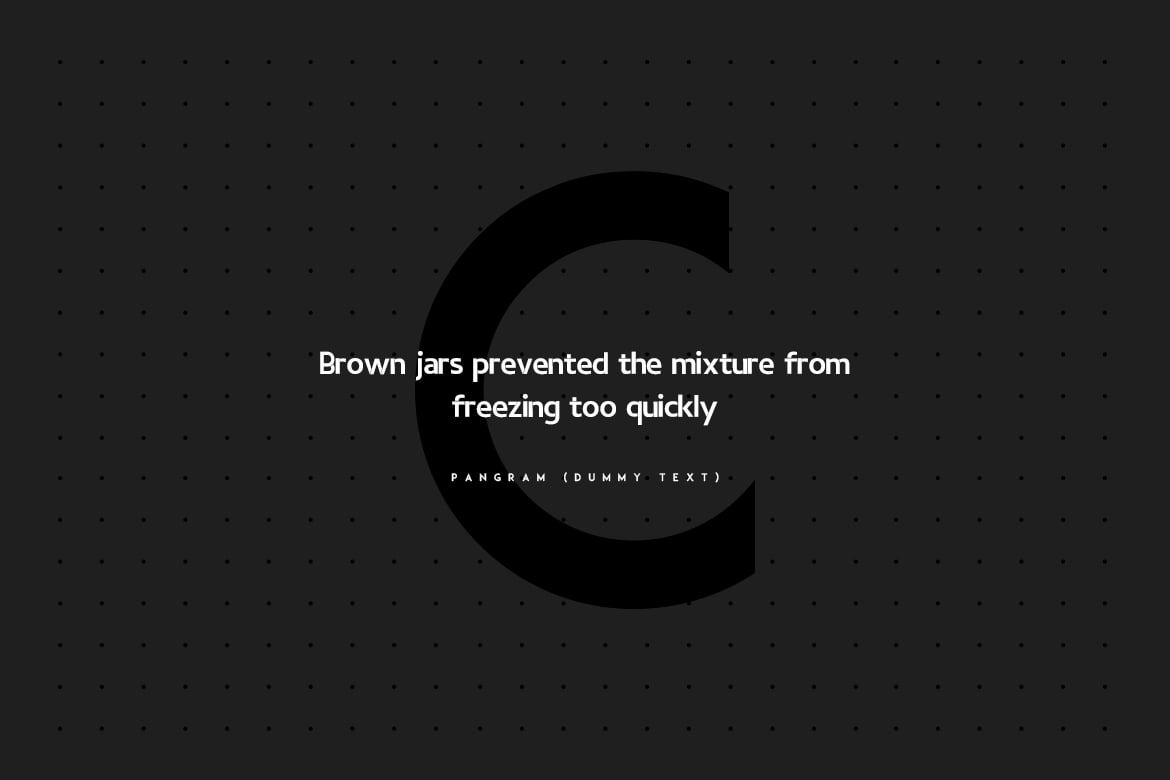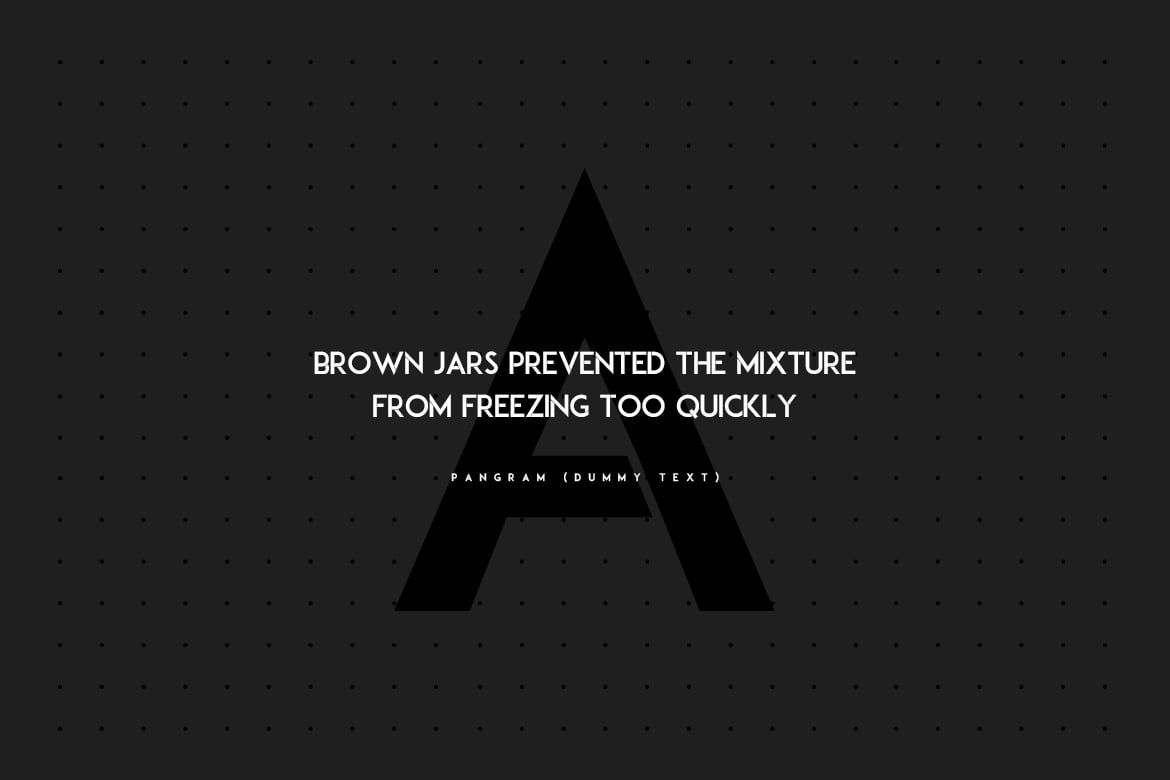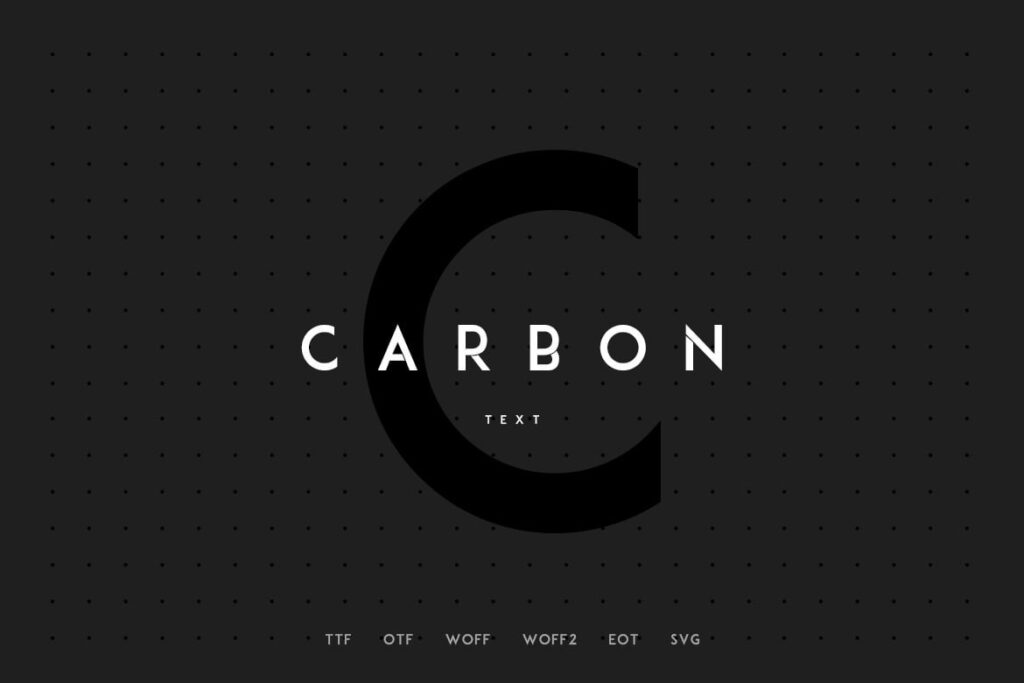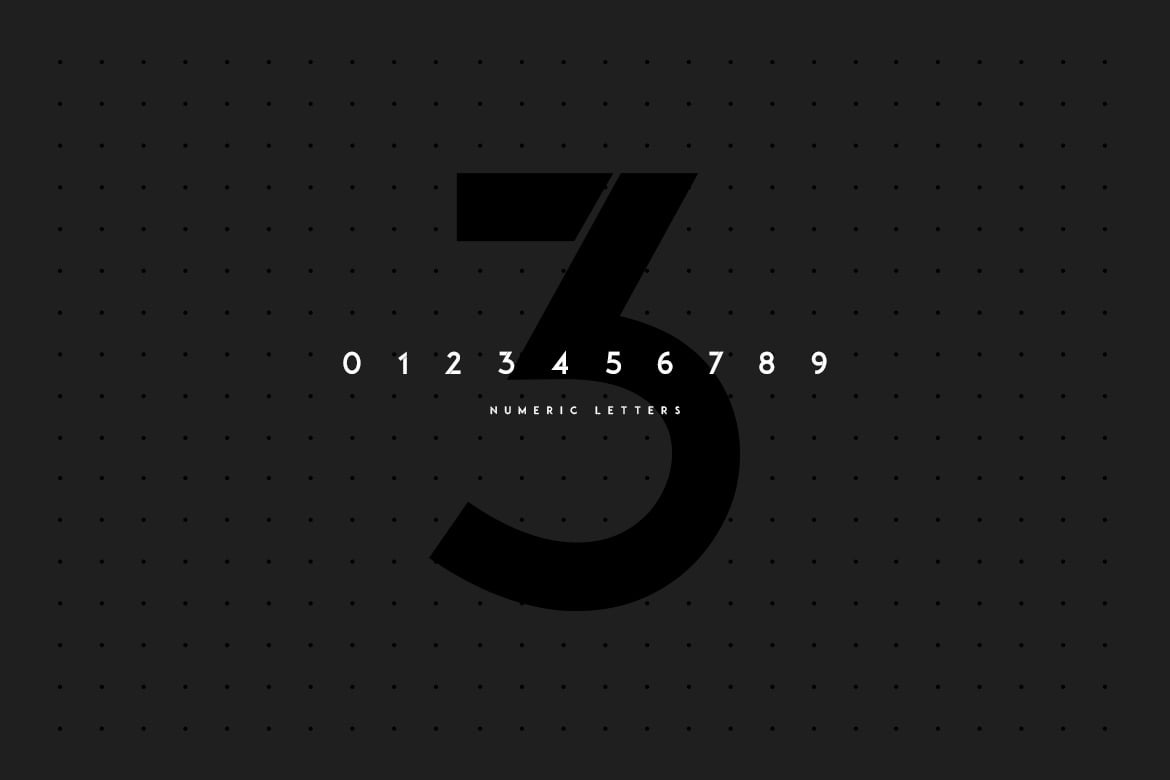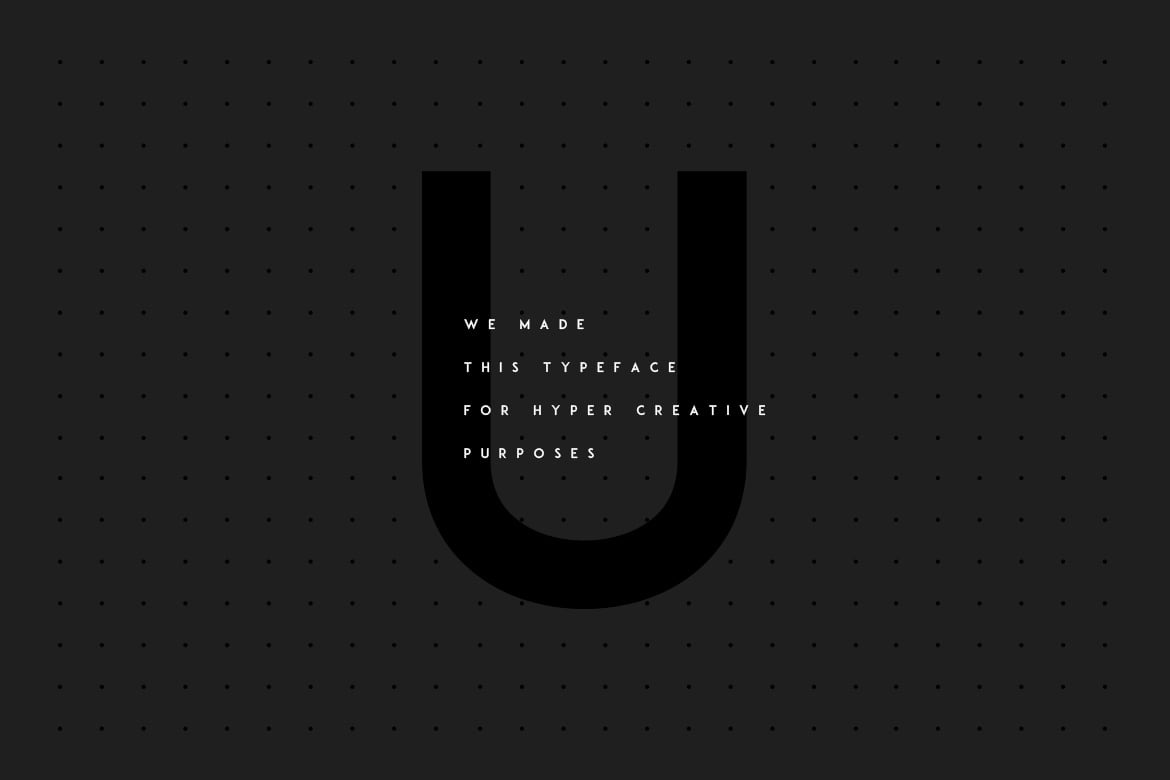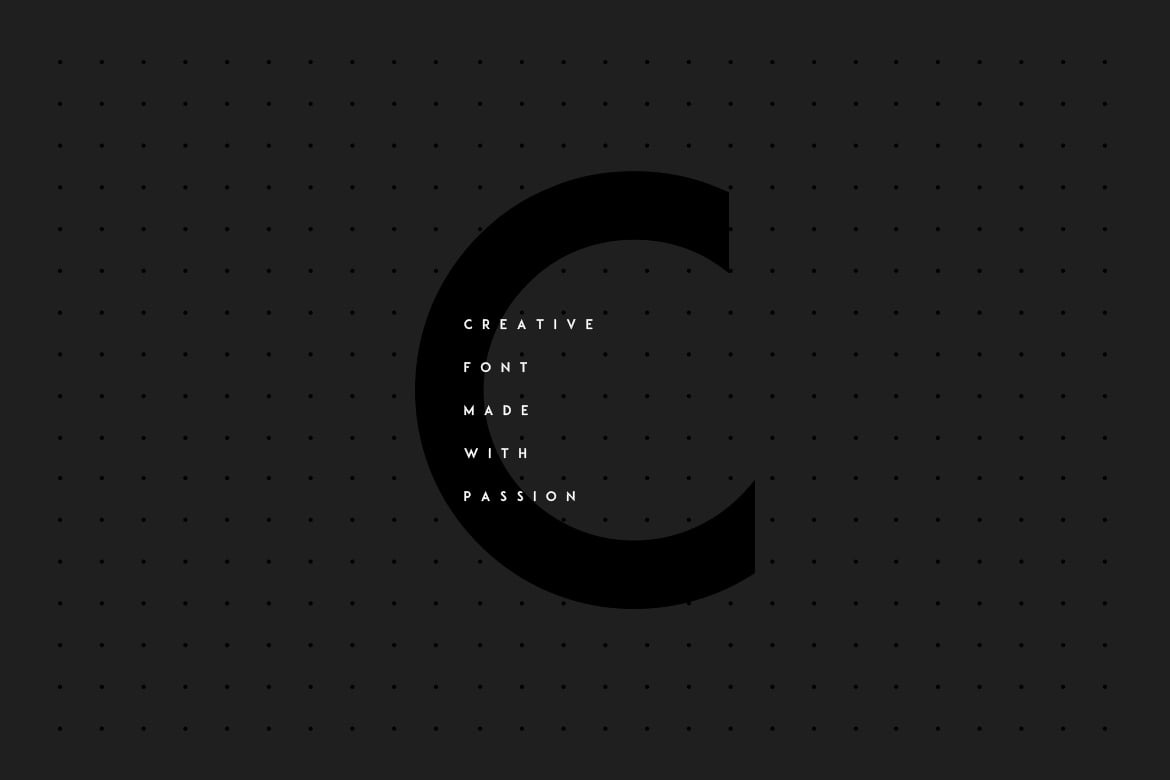
Carbon Pro is a modern Sans Serif typeface very much suitable for Film Posters, headlines, Block letter, Subheading, Logo Designs, Big Banners. Creative & Decorative Typography Web Designs.Carbon Pro is perfectly suited for eye-catching headlines. Its clean appearance and mid-weight make it a wonderful candidate for being paired with more decorative, elaborate subheading fonts.The pack includes OTF, TTF and Web Fonts